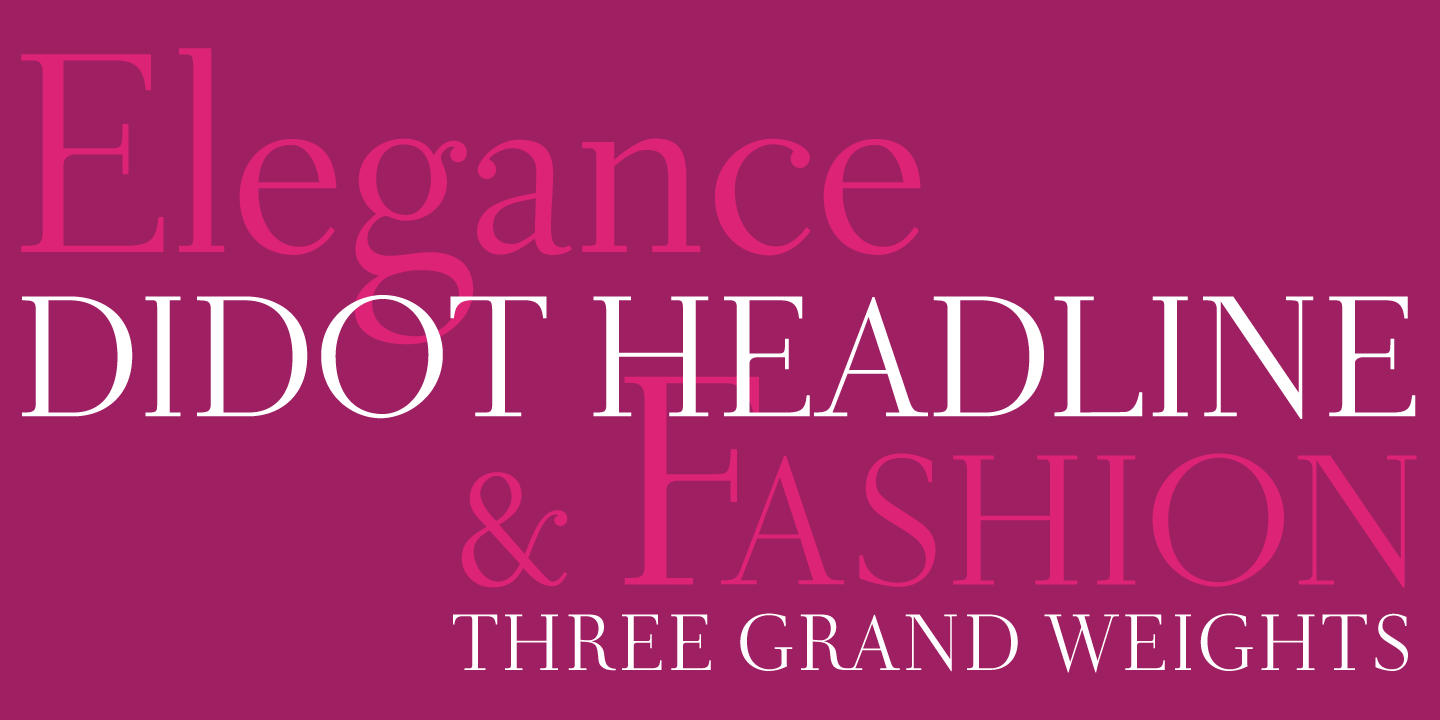
Didot Headline Font is perfect for luxury fashion magazines, high-end editorial layouts, prestigious newspaper headlines, elegant book covers, sophisticated brand identities, classical concert programs, upscale restaurant menus, premium product packaging, formal invitation designs, and refined corporate communications. This refined serif typeface excels in applications where classical elegance, editorial sophistication, and timeless authority need to be communicated with distinguished presence and typographic excellence.
Didot Headline Font is exciting because it represents the pinnacle of neoclassical typography with its dramatic contrast between thick and thin strokes creating unparalleled visual impact. Its razor-sharp serifs and mathematical precision deliver exceptional readability at large sizes while maintaining sophisticated elegance. The font's distinctive high contrast and refined proportions make it particularly compelling for brands seeking to communicate luxury, intelligence, and editorial authority in their premium publishing and high-end marketing communications.
The Didot Headline Font family includes comprehensive weight variations: Light, Regular, Medium, Bold, and Black, along with their corresponding italic styles that maintain the characteristic high contrast while offering different levels of visual drama. Each weight preserves the distinctive neoclassical proportions while providing varying emphasis levels, giving designers complete typographic flexibility for sophisticated editorial hierarchies.
For designers creating premium editorial content or luxury brand materials, Didot Headline Font Free Download offers unmatched classical elegance with contemporary functionality. Whether you're developing high-fashion publications, luxury brand identities, or prestigious corporate communications, this distinguished typeface provides the perfect foundation for conveying sophistication and authority. The font's extensive character set includes classical ligatures and special symbols that enhance premium design applications and editorial excellence in professional publishing environments.